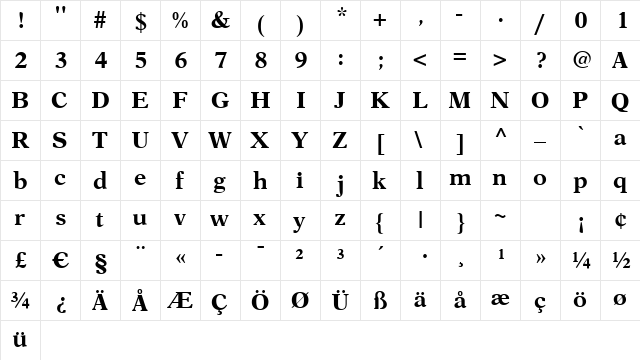
Austin Bold
Design Context for Austin Typeface
Austin offers clean, dependable letterforms without strong stylistic allegiance, making it a practical choice for designers who need flexibility. Its bold stroke weight gives it real presence on the page.
Pro Tip: Pair Austin with a font of contrasting weight or personality to build a more expressive typographic hierarchy.